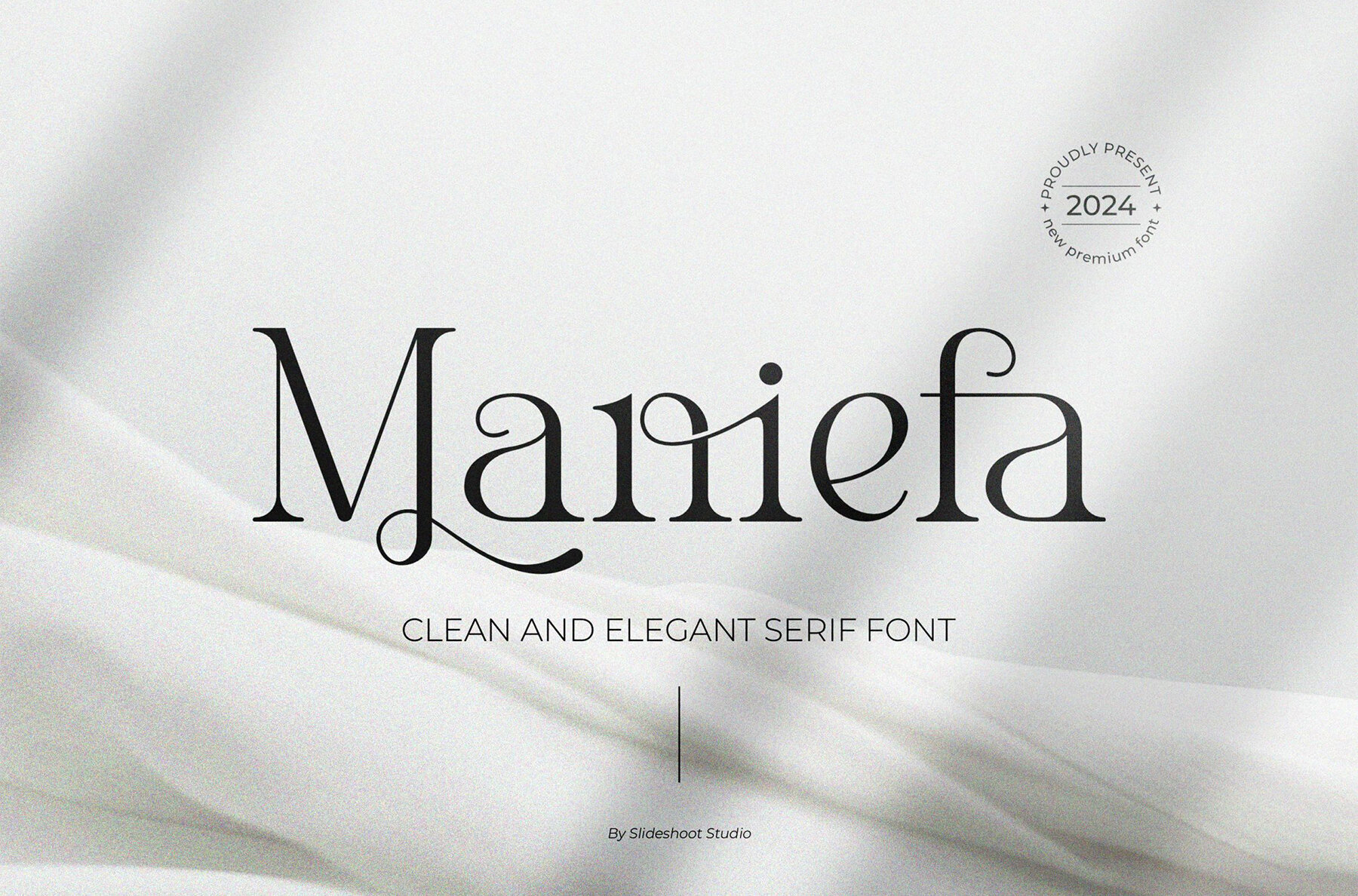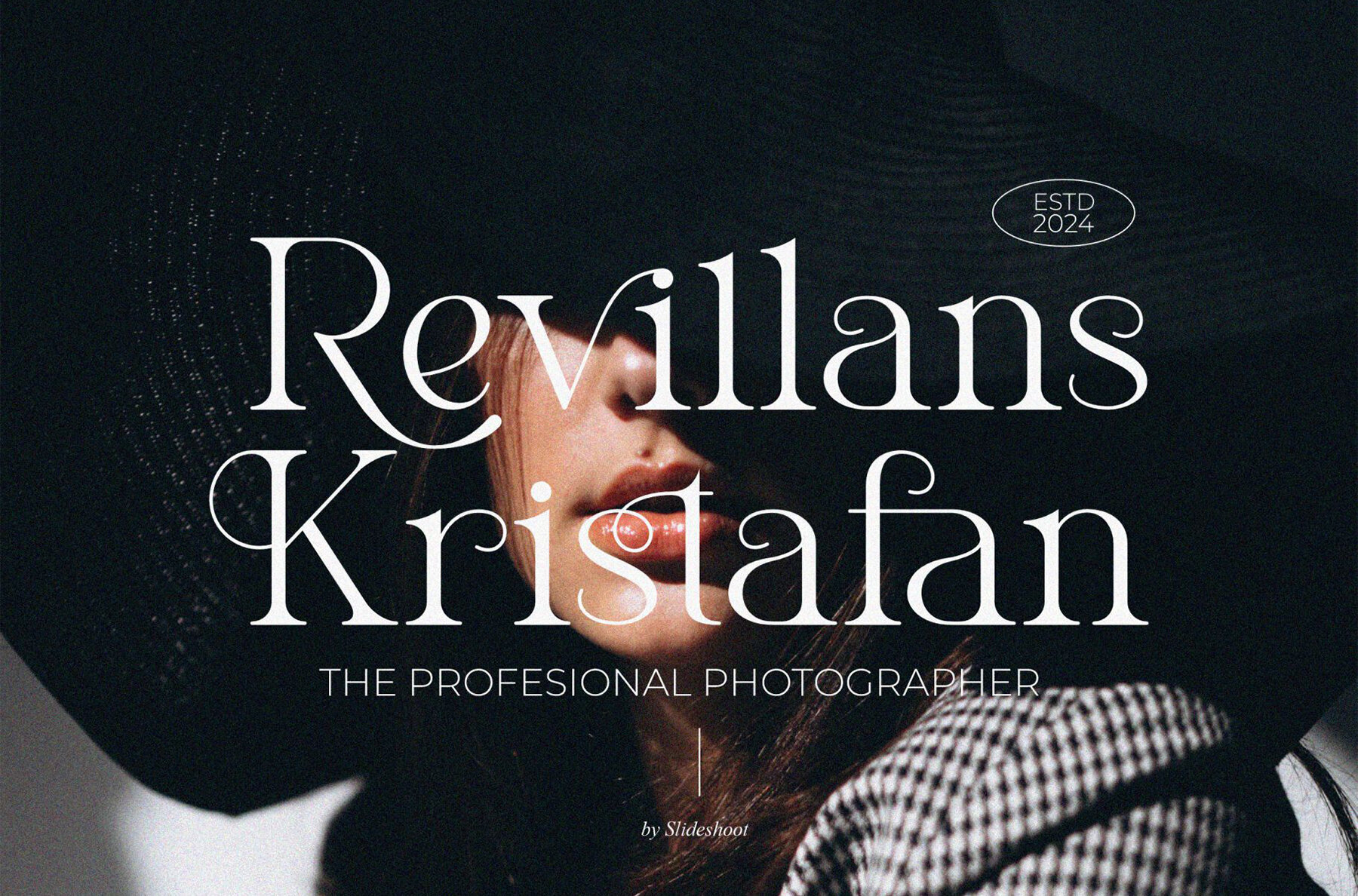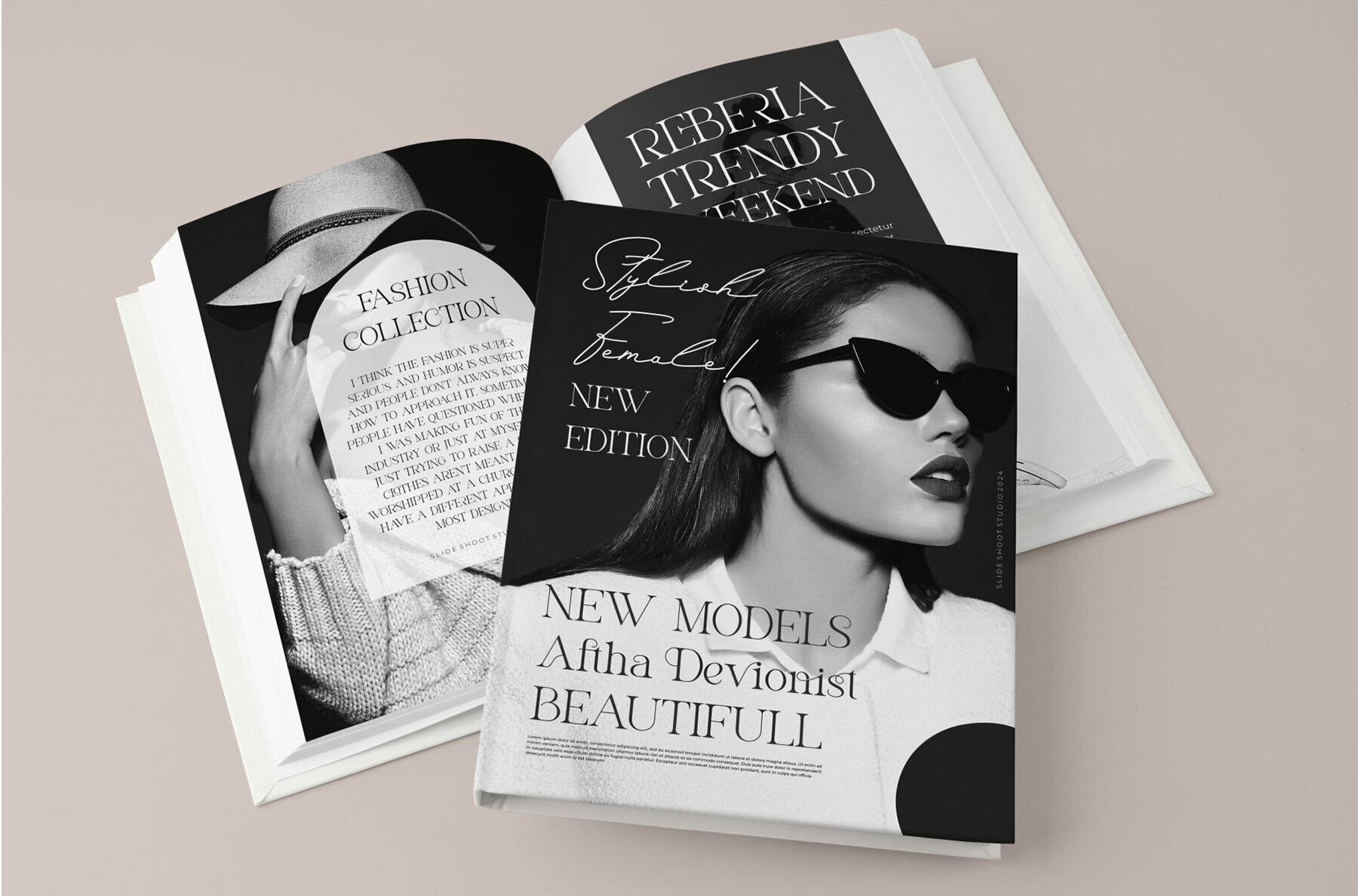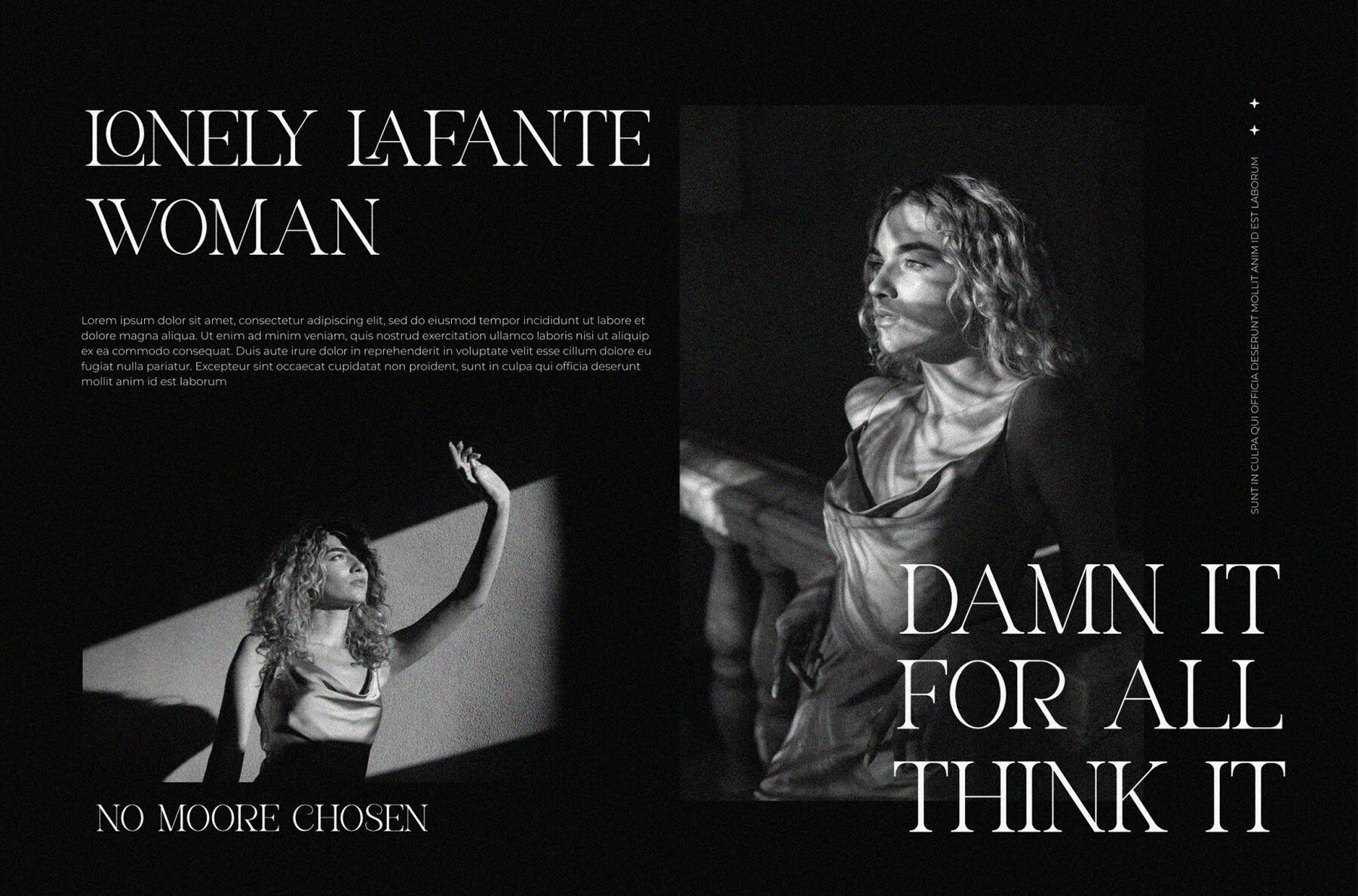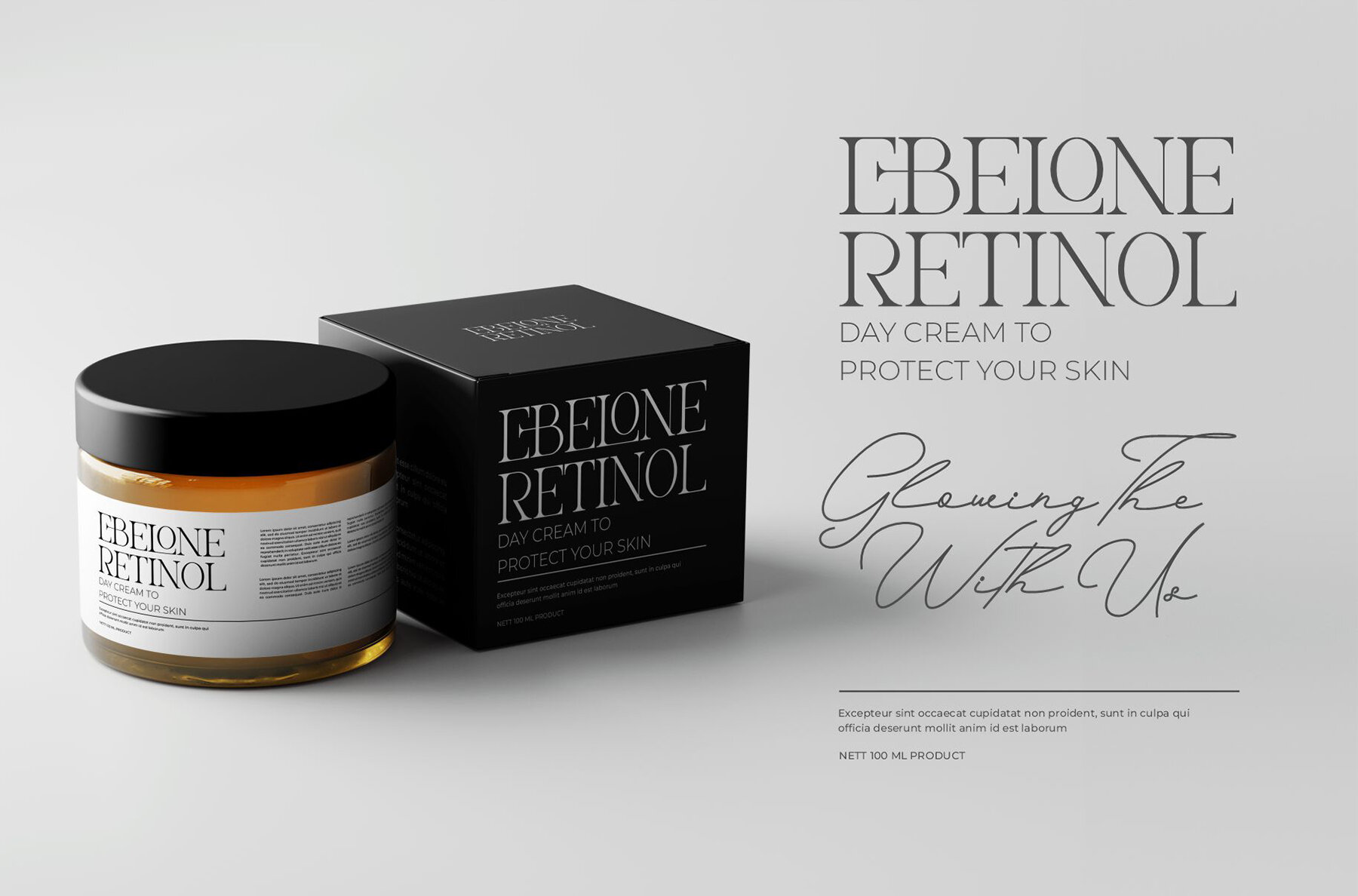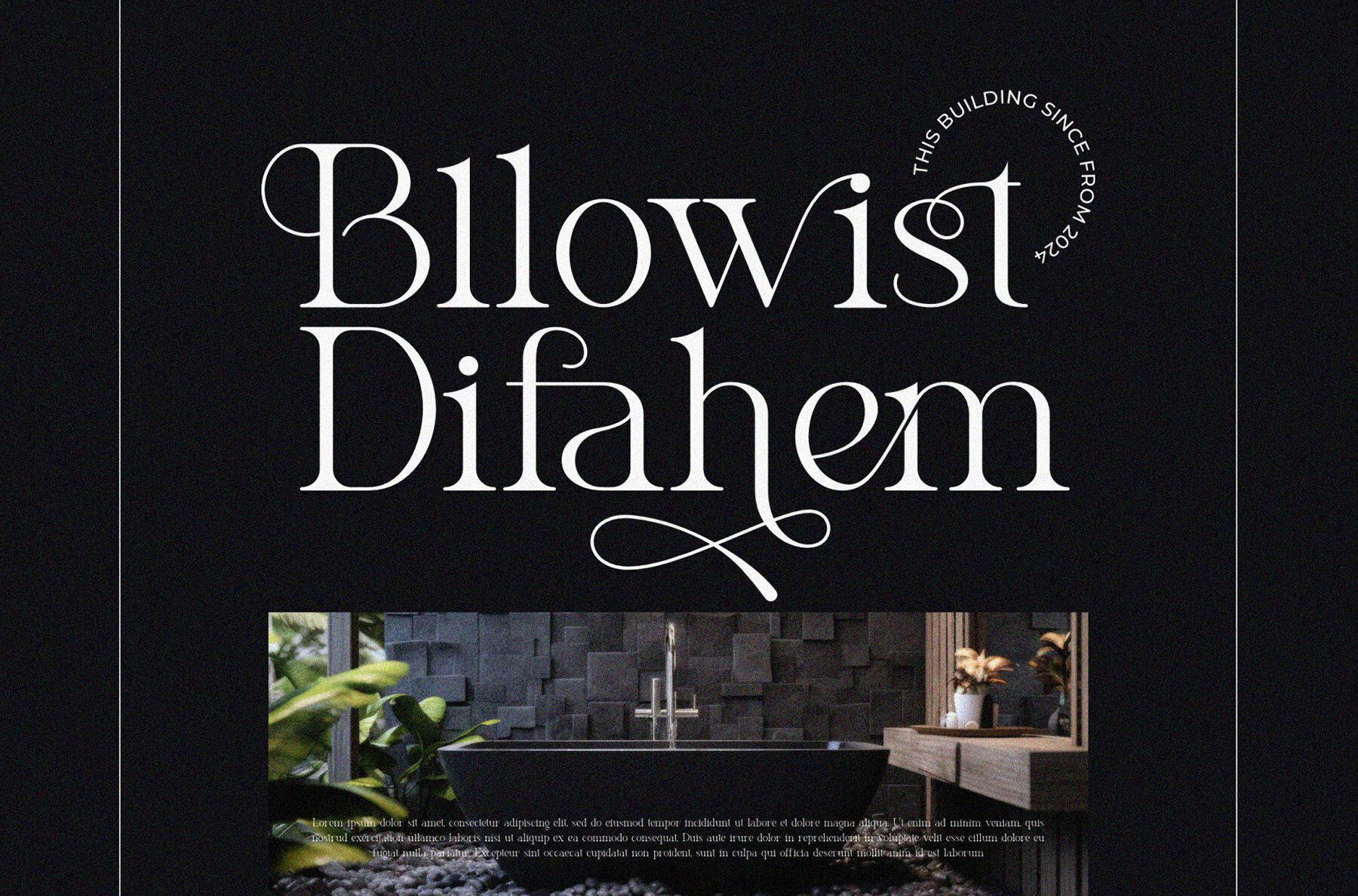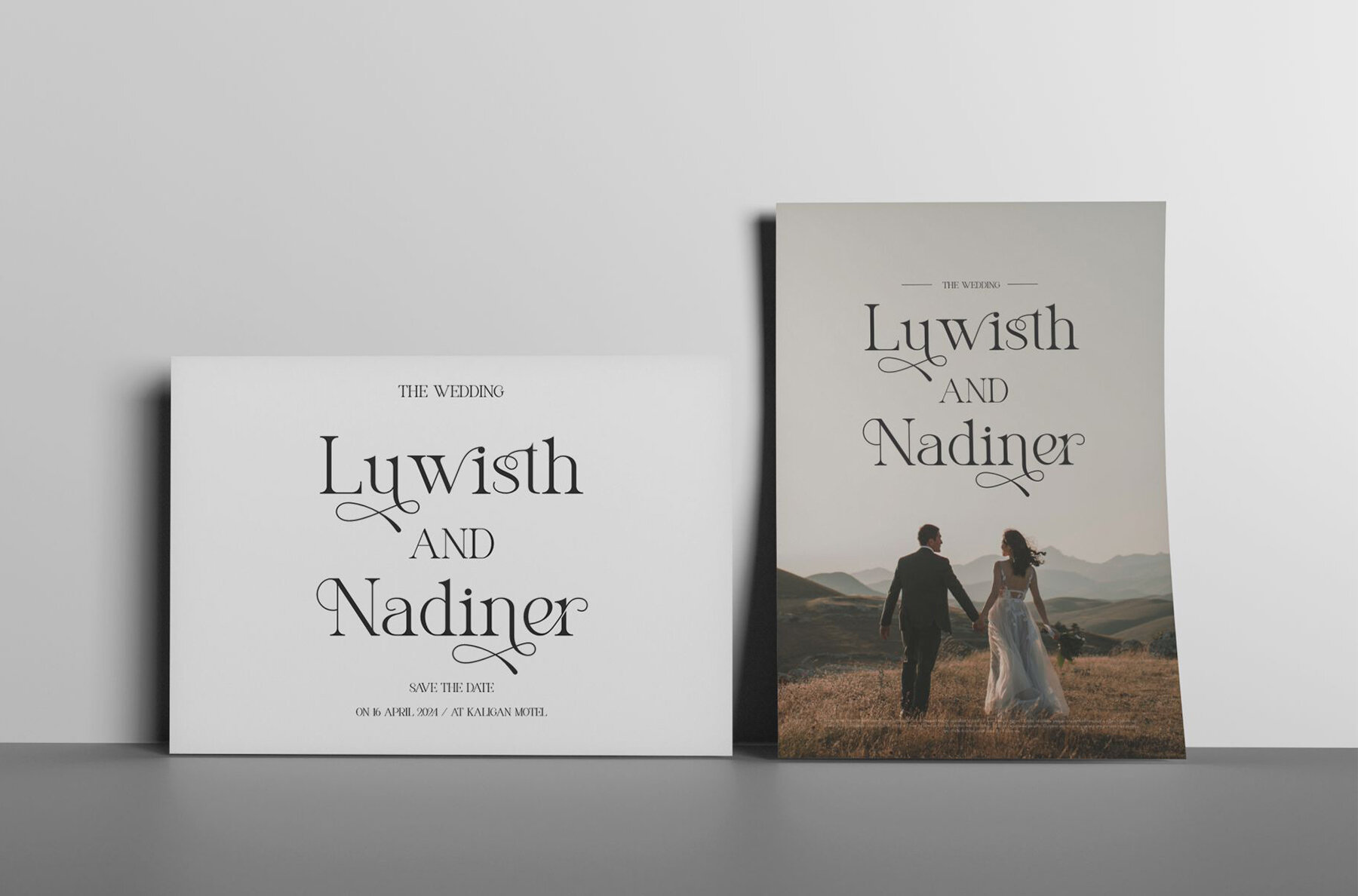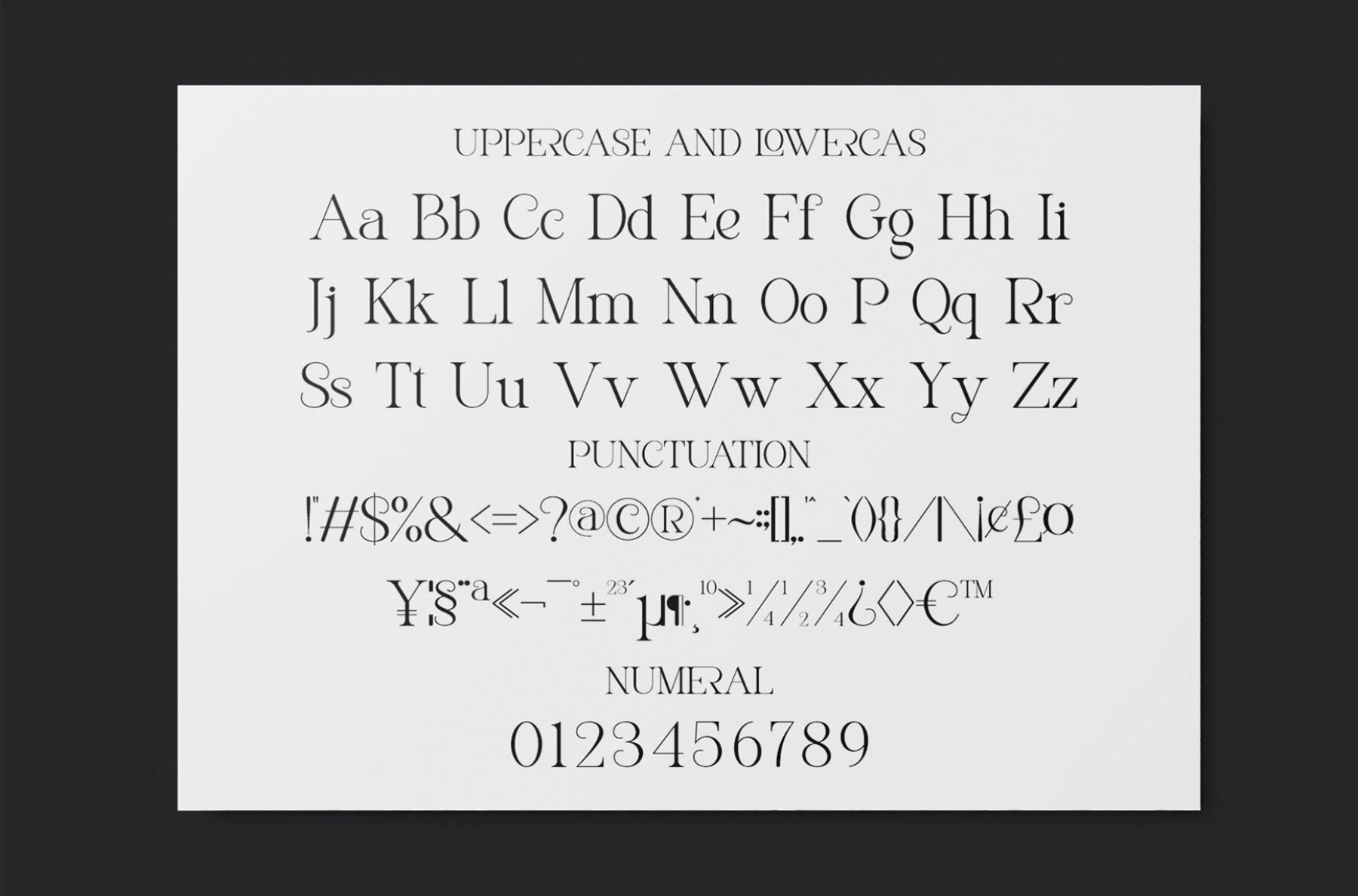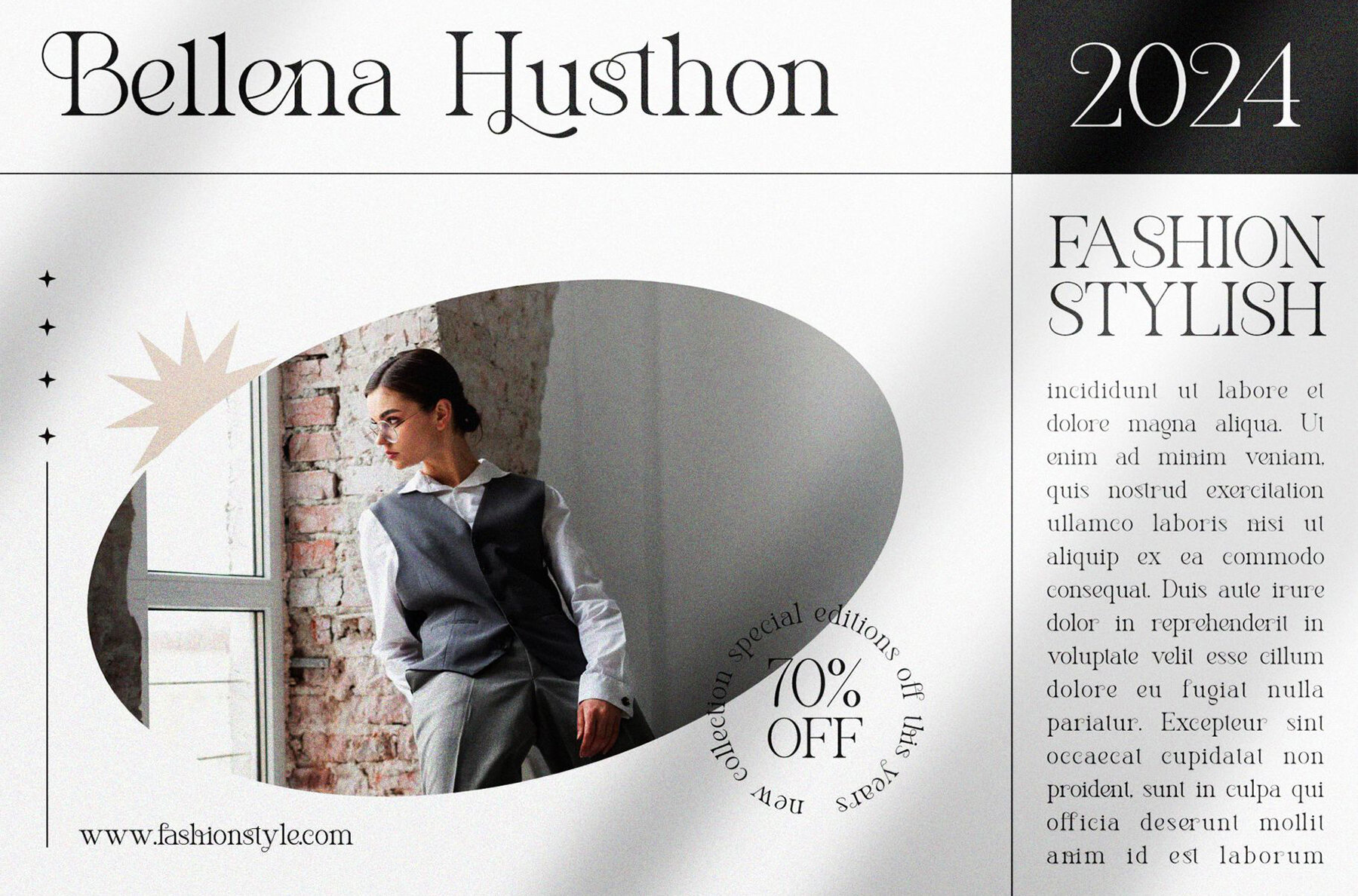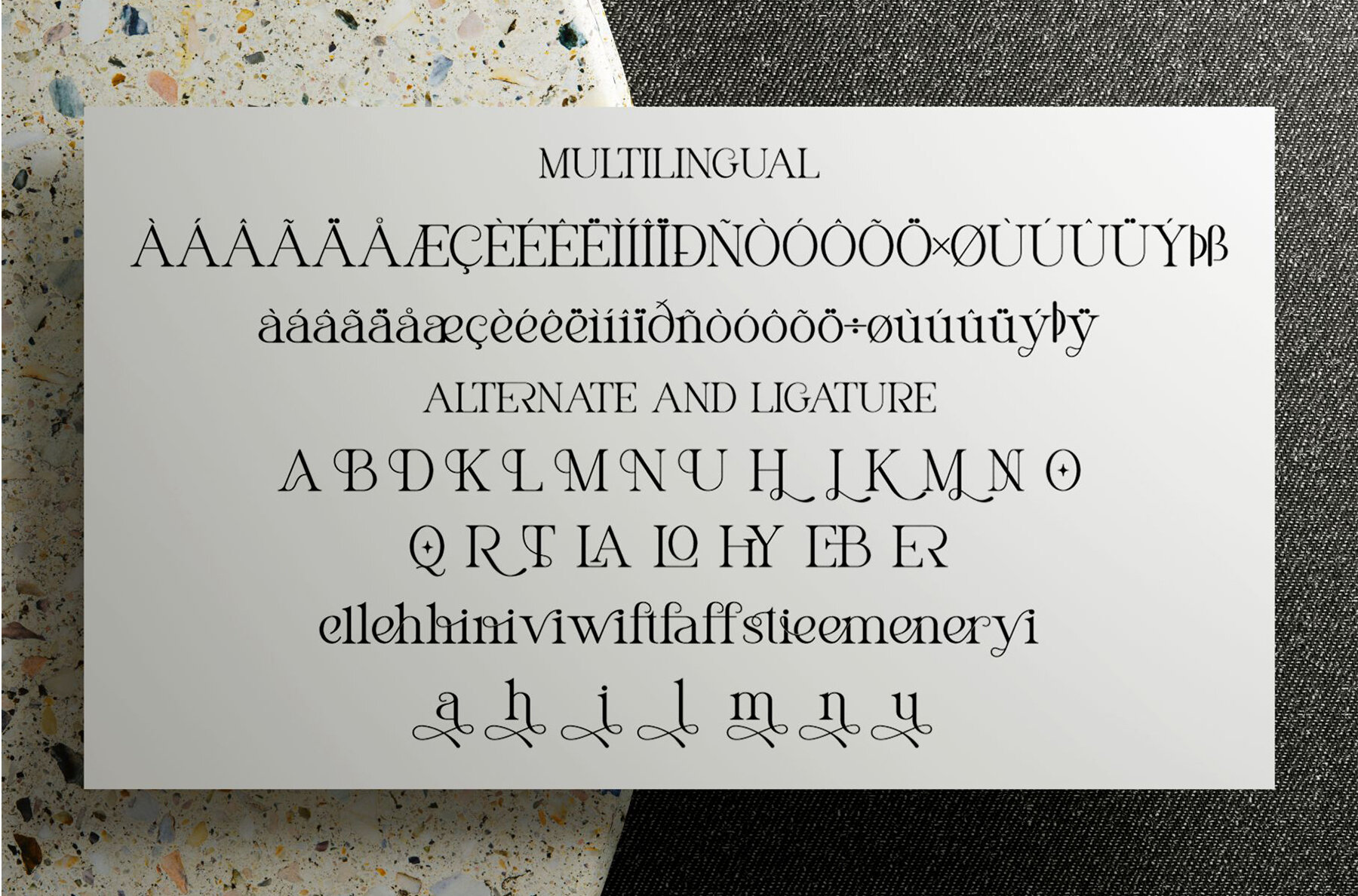
Maniefa Font
Maniefa Regular
Maniefa is a serif font renowned for its luxury and elegance, making it ideal for enhancing sophisticated designs. Perfect for a wide range of projects, including invitation cards, company logos, movie titles, business cards, book titles, and brand names, Maniefa brings an air of sophistication and cohesion to any design.
This elegant font features stylish inflections and ligatures, offering a beautiful harmony in your visual projects. It includes both uppercase and lowercase letters, as well as numbering and punctuation. Easy to install and compatible with both PC and Mac, Maniefa is versatile and works seamlessly with Adobe Illustrator, Adobe Photoshop, Adobe InDesign, and Microsoft Word.